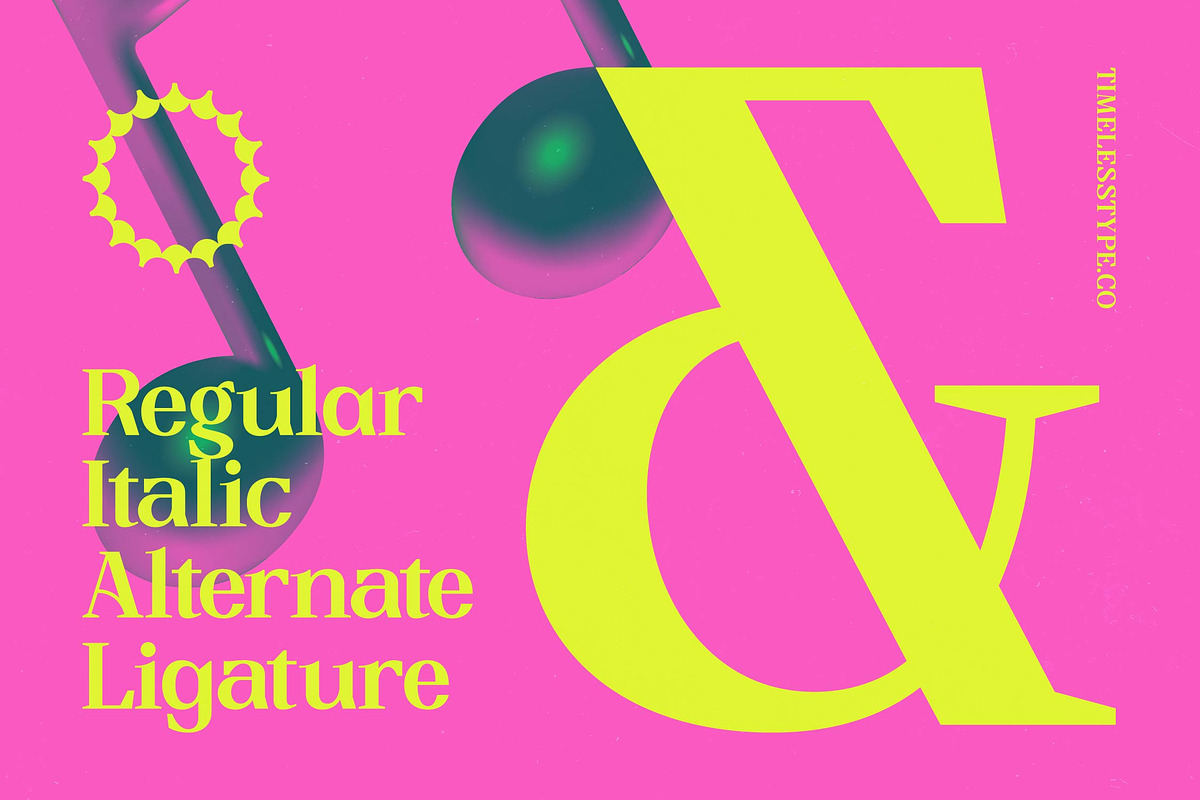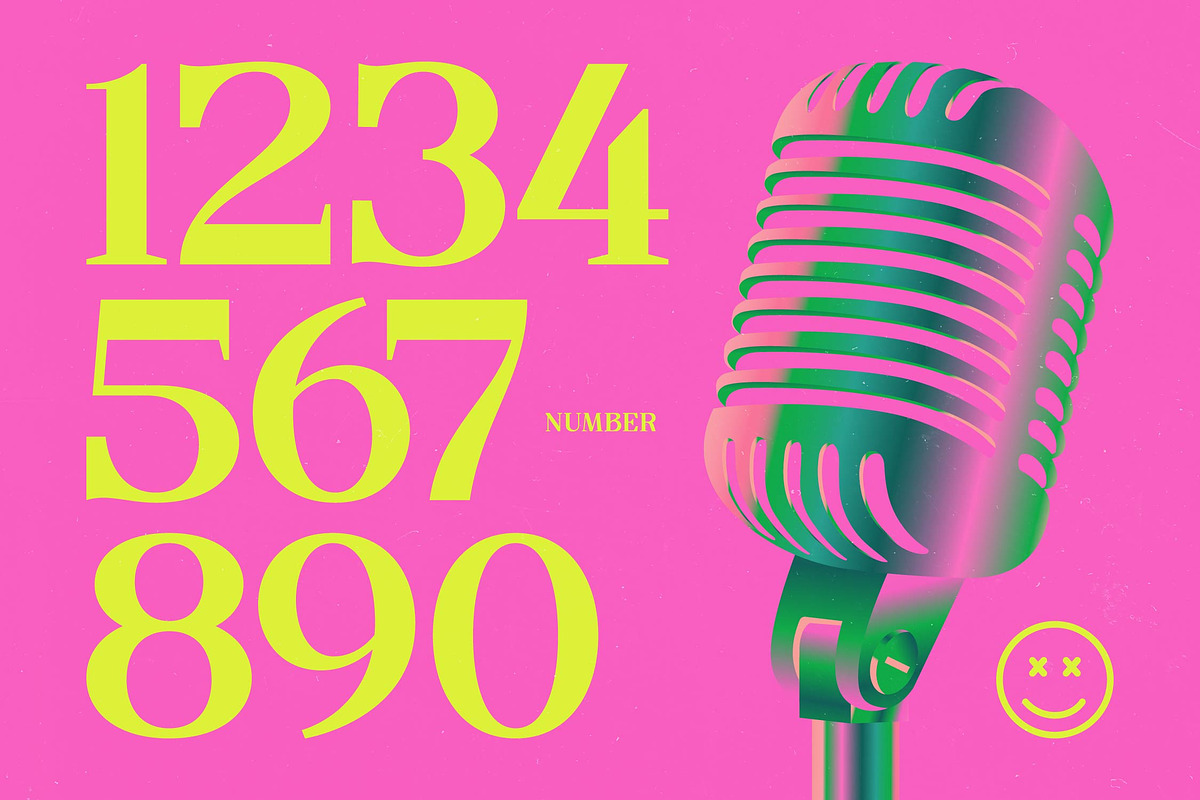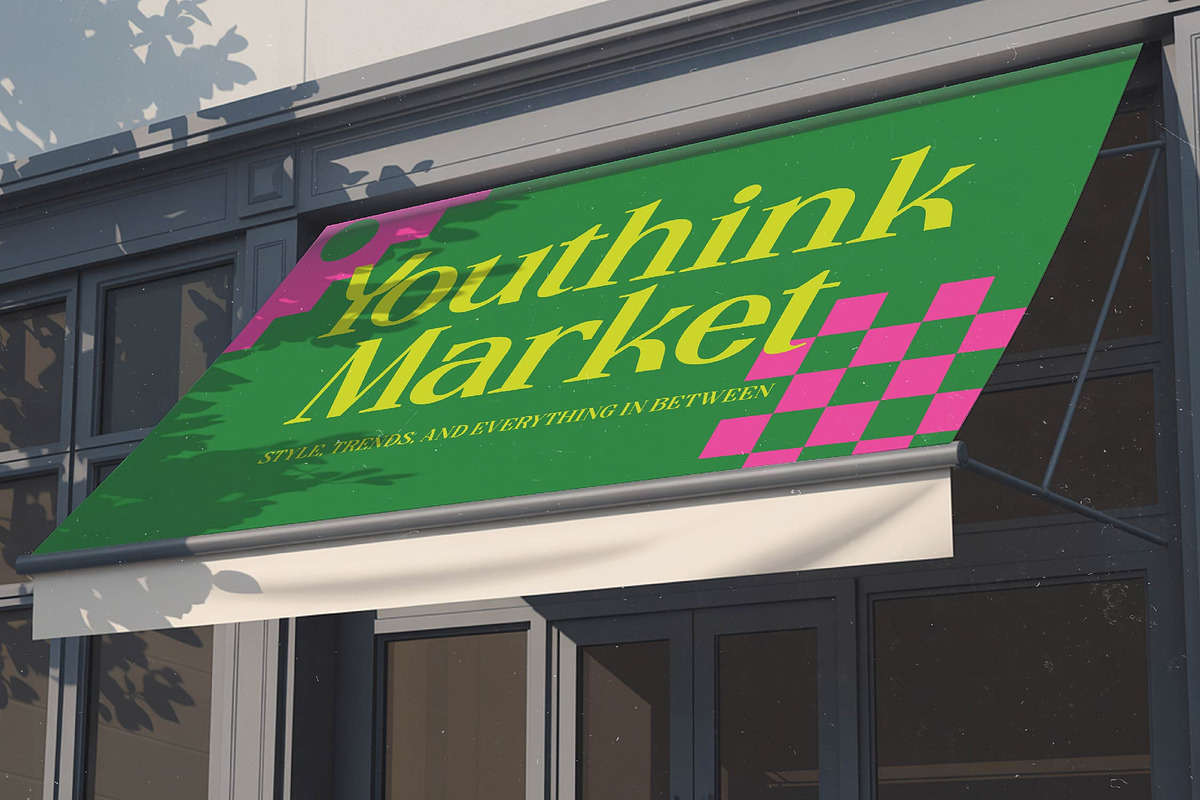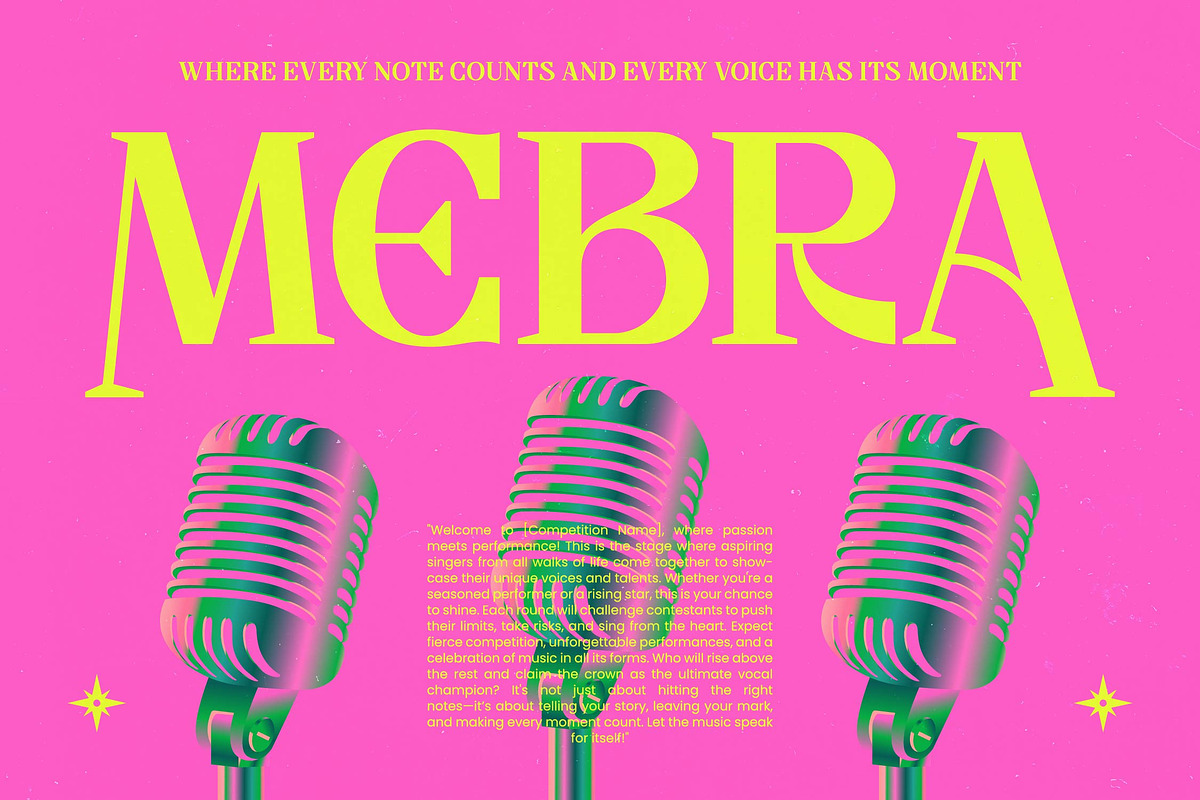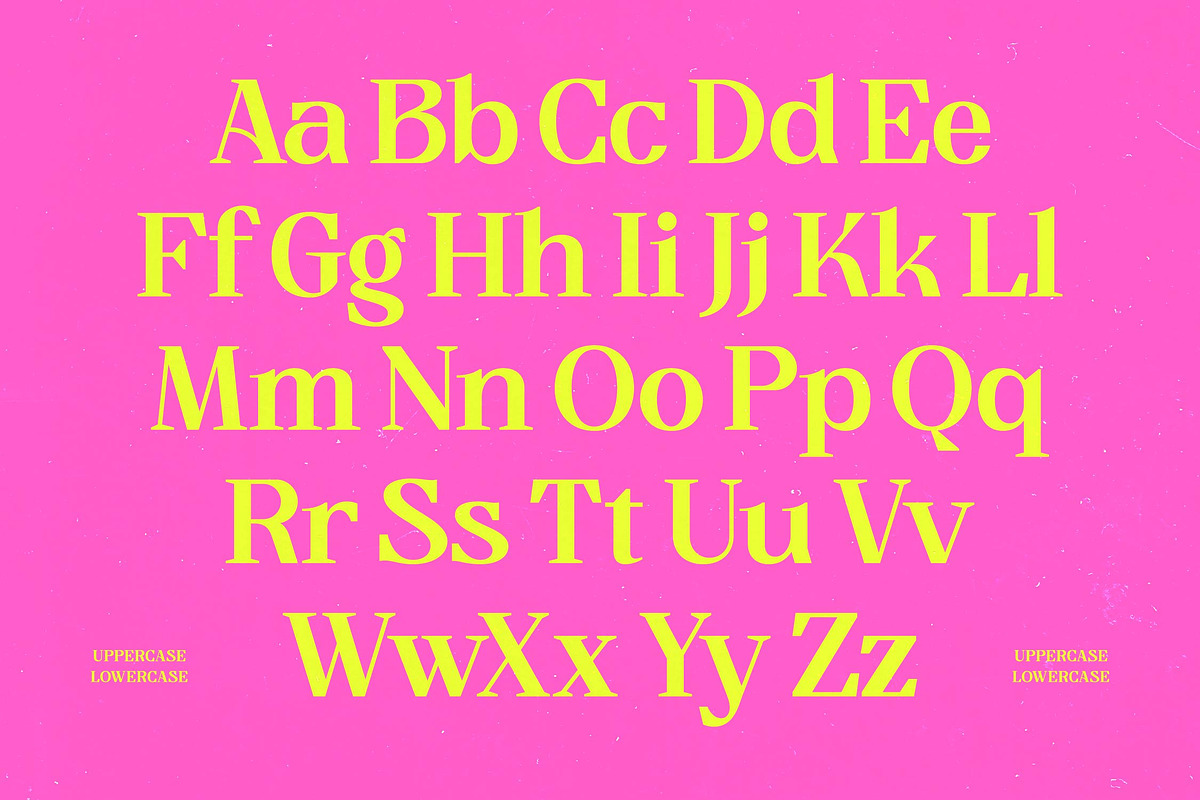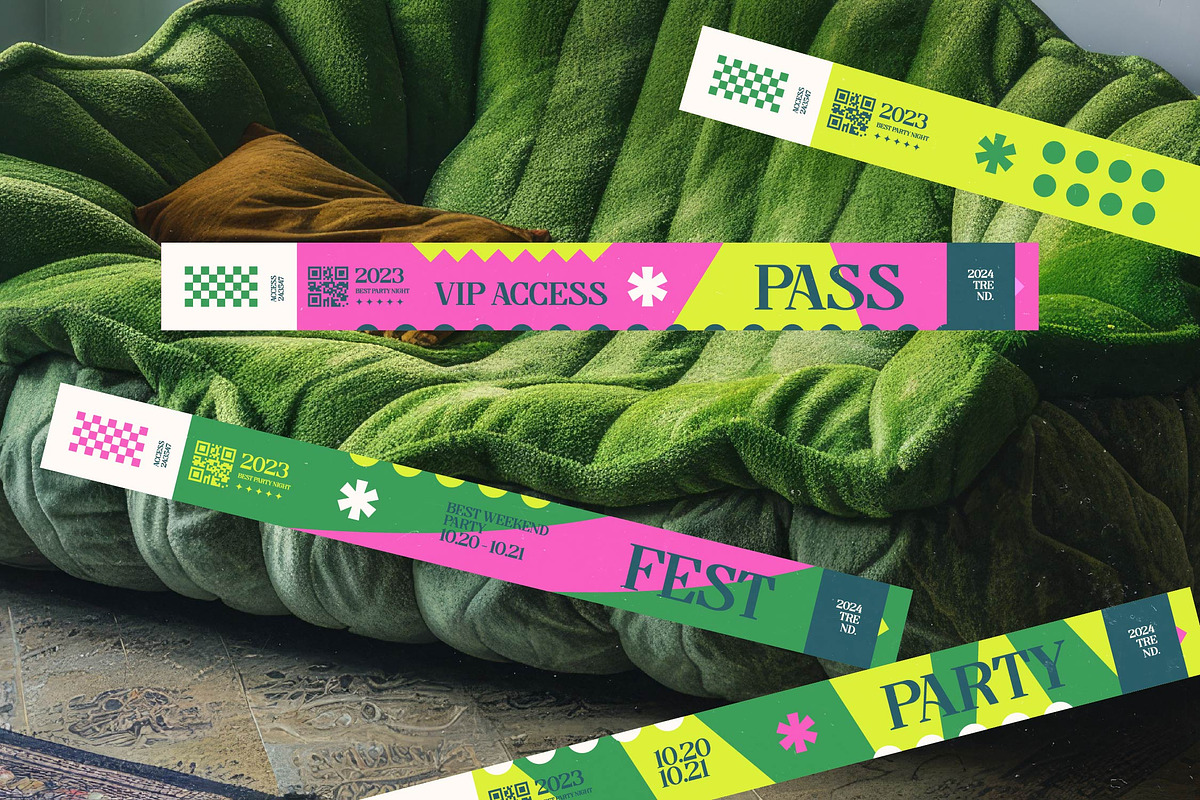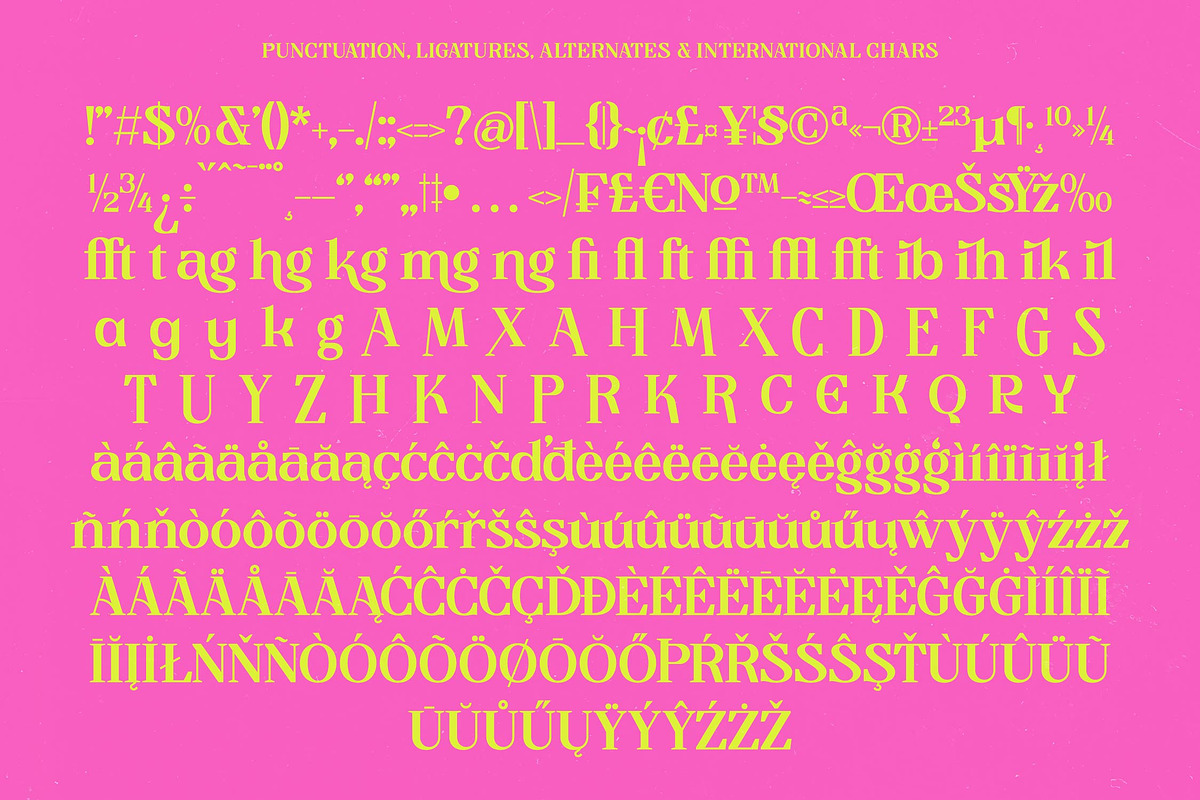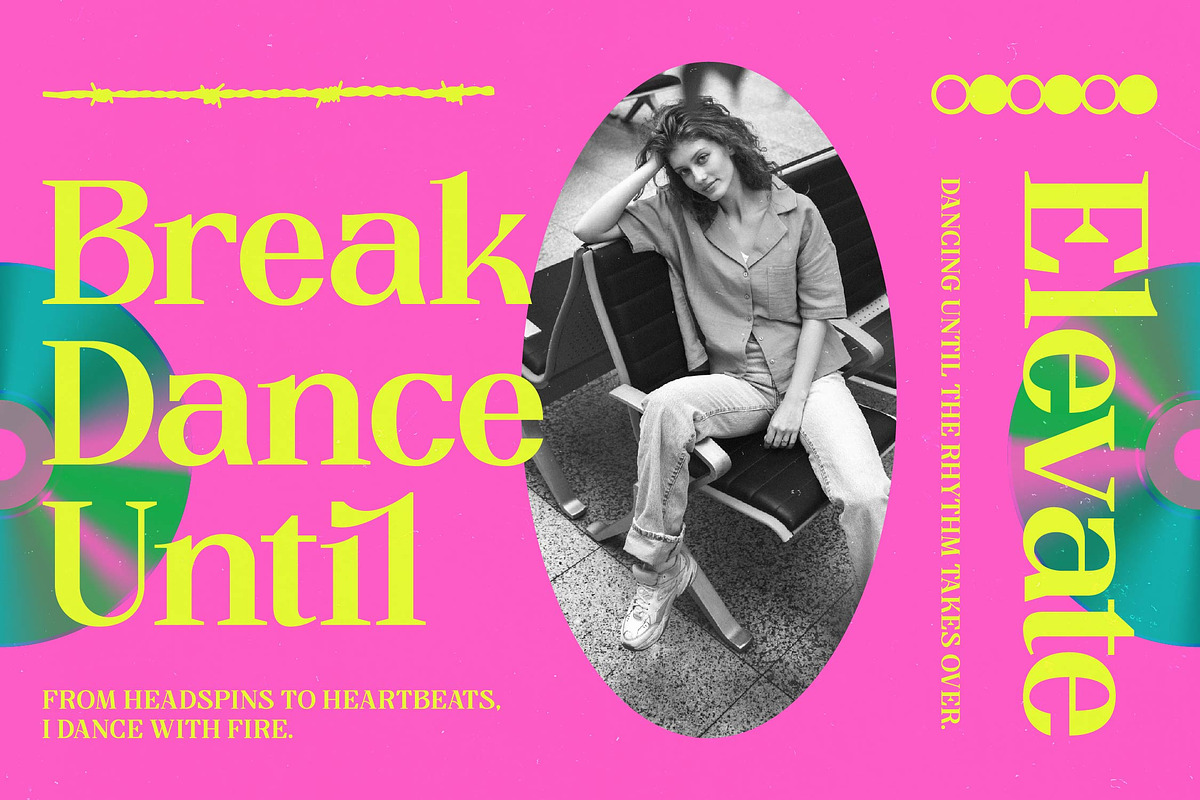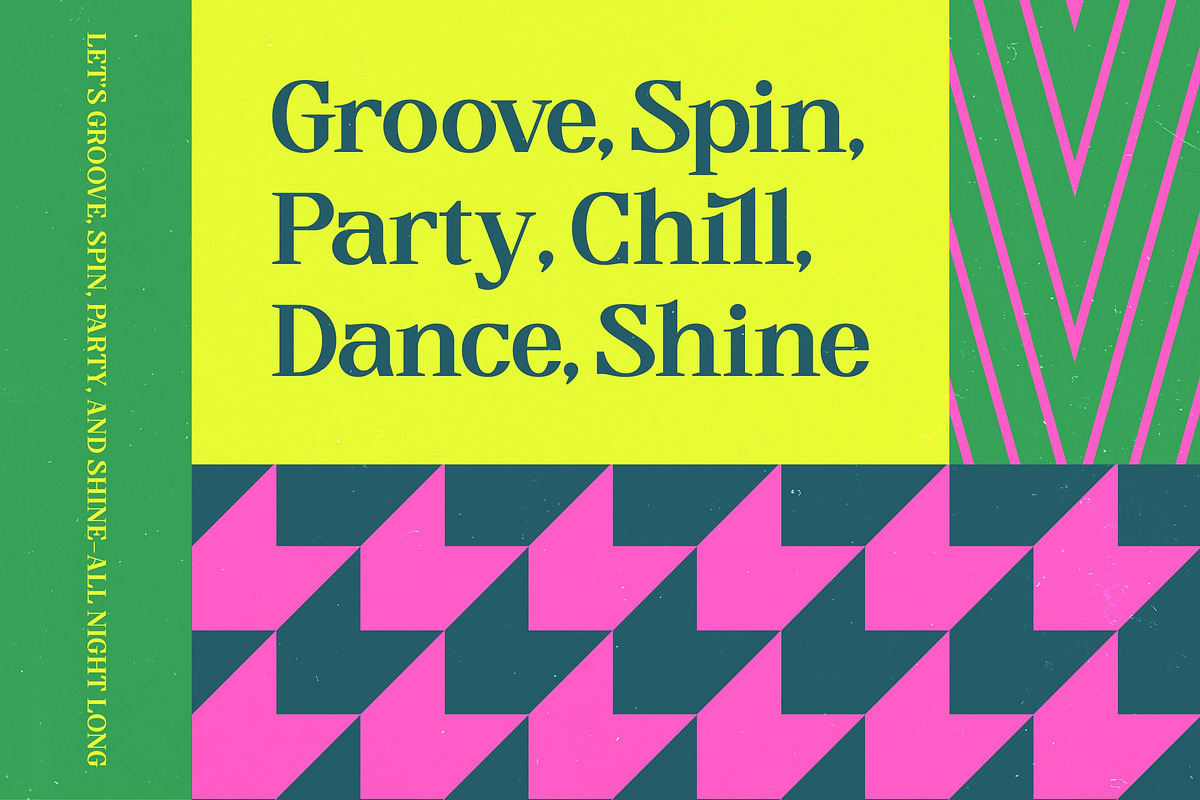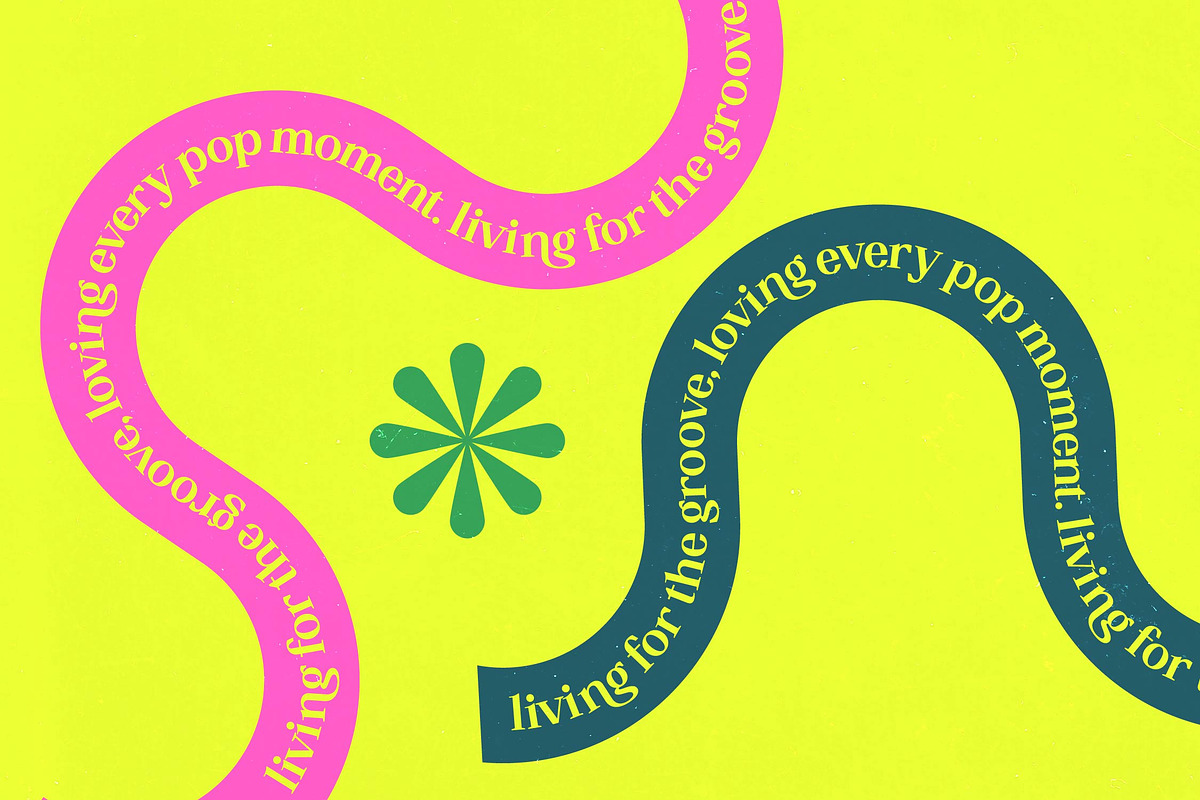
Beyond Musik Modern Display Serif
Beyond Musik - Freestyle Display Font , Beyond Musik is a vibrant explosion of rhythmic energy, designed to make your headlines sing with a rebellious yet refined spirit. This typeface dances between the lines of classical elegance and underground rave culture, creating a visual symphony for the modern age.
Inspired by the neon-lit atmosphere of retro music venues and the high-fidelity aesthetics of the early digital era, this font captures the essence of sound in static form. It draws from the sharp, percussive nature of modern beats, translating them into crisp serifs and fluid, melodic curves.
With its striking presence, this modern serif display is engineered for maximum branding impact, offering a sophisticated blend of edge and luxury typography. It functions as a high-performance editorial font that commands attention through its high-contrast serif details and unique rhythmic spacing.
Tapping into the current modern serif trend, this typeface is perfect for designers looking for character-driven typography that breaks away from the mundane. It aligns seamlessly with the rise of editorial display fonts that favor expressive, experimental shapes over traditional, static letterforms.
This versatile family is an ideal choice for high-end logo design and bold branding projects that need a distinct voice. From cutting-edge fashion spreads and luxury packaging to contemporary editorial layouts and even avant-garde wedding invitations, it brings a touch of sonic flair to every surface.
The package includes an extensive library of 382 glyphs, featuring 17 unique ligatures and 35 creative alternates for total customization. With full multilingual support and a wide array of international characters, it ensures your message resonates across borders without losing its stylistic swashes or decorative edge.